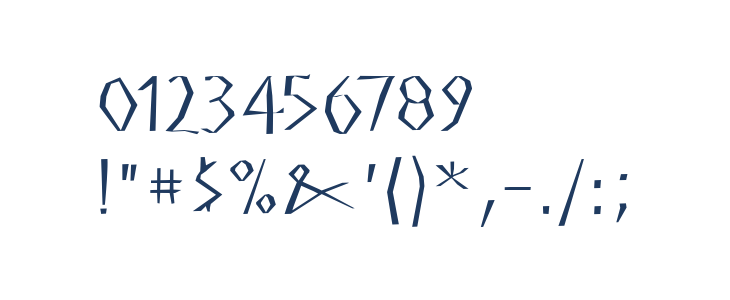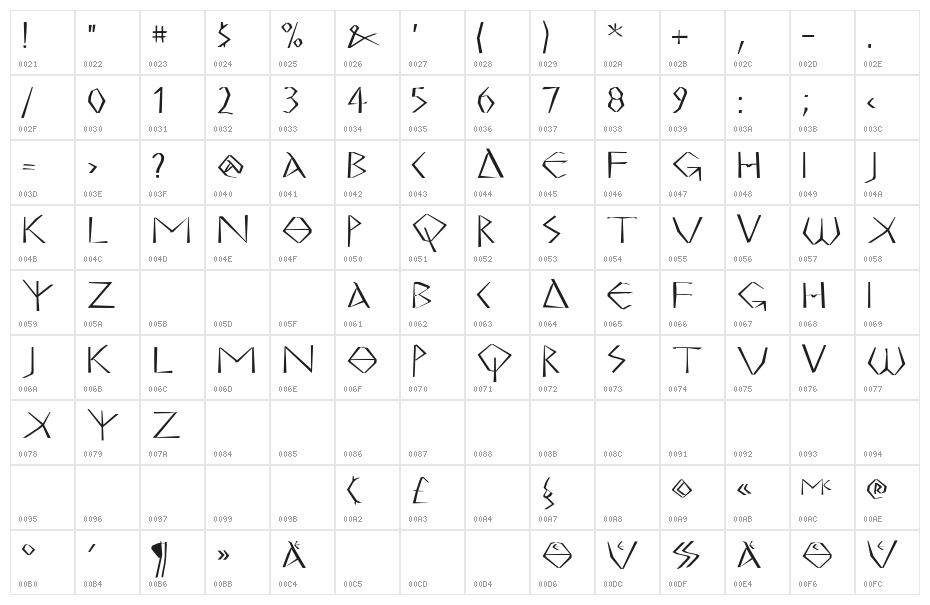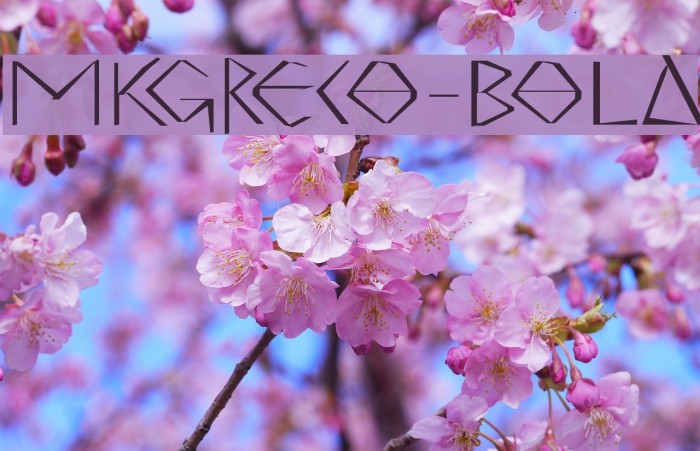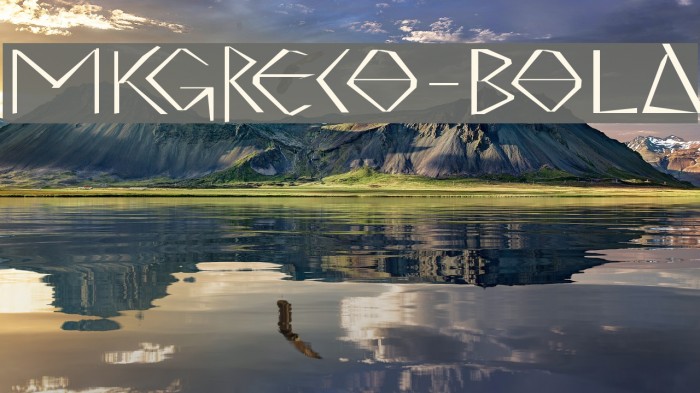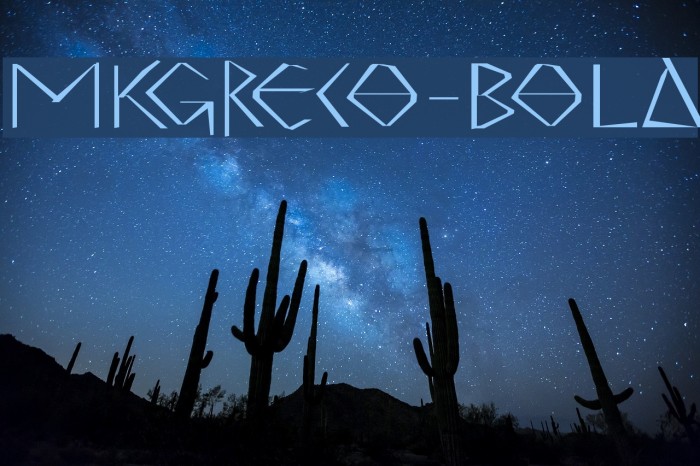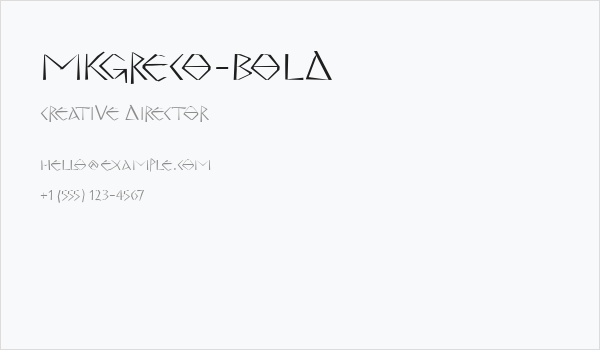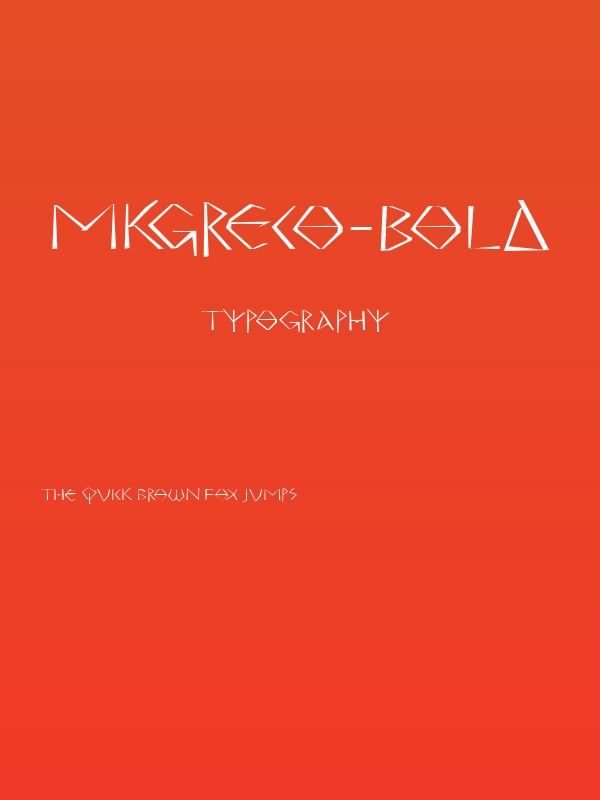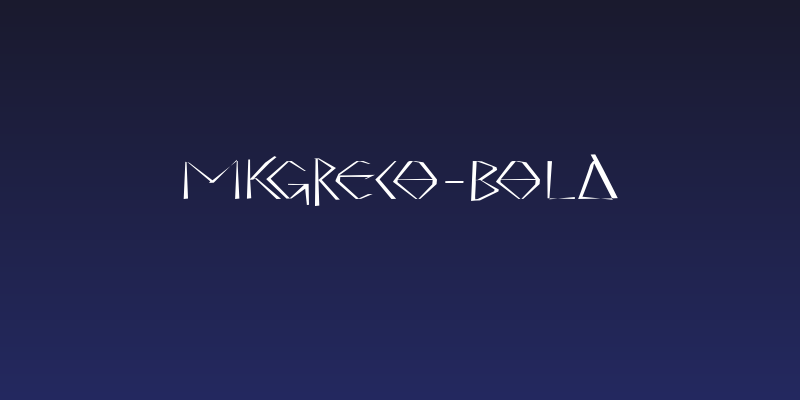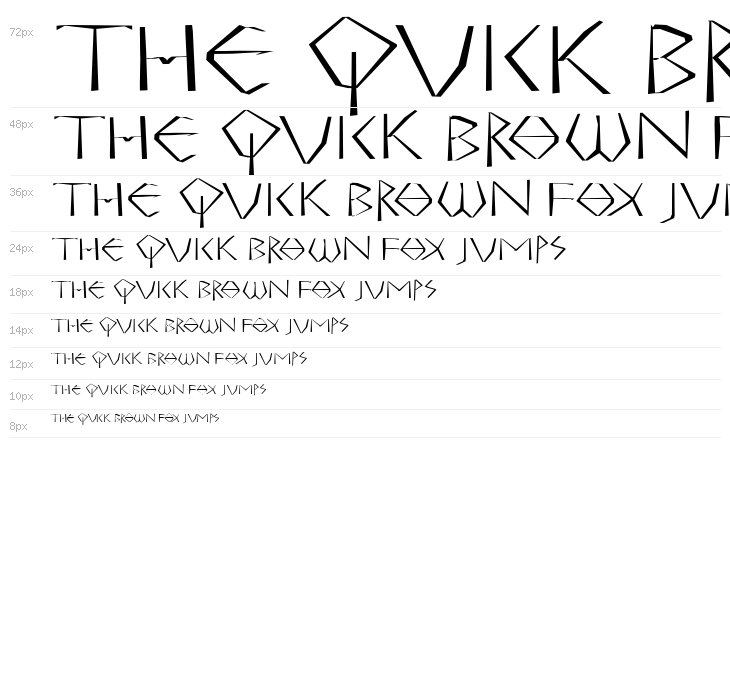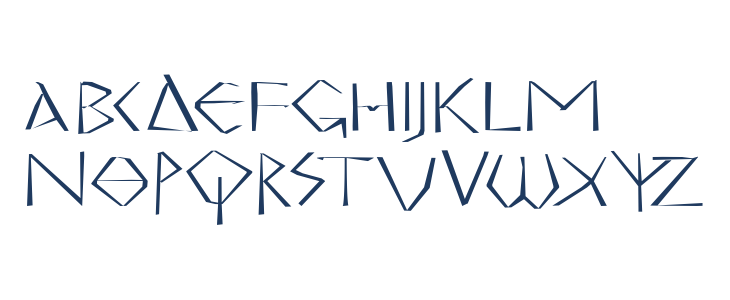
MKGreco-Bold Font
MKGreco-Bold Description
This font features a bold and angular design, reminiscent of ancient Greek inscriptions. The characters are constructed with sharp, geometric lines, giving them a distinct and striking appearance. The uppercase and lowercase letters share a consistent style, with a focus on triangular and diagonal elements. Numbers and special characters maintain the same aesthetic, ensuring a cohesive look across all glyphs. The font's unique style makes it ideal for projects that require a historical or classical touch, while its boldness ensures readability and impact.